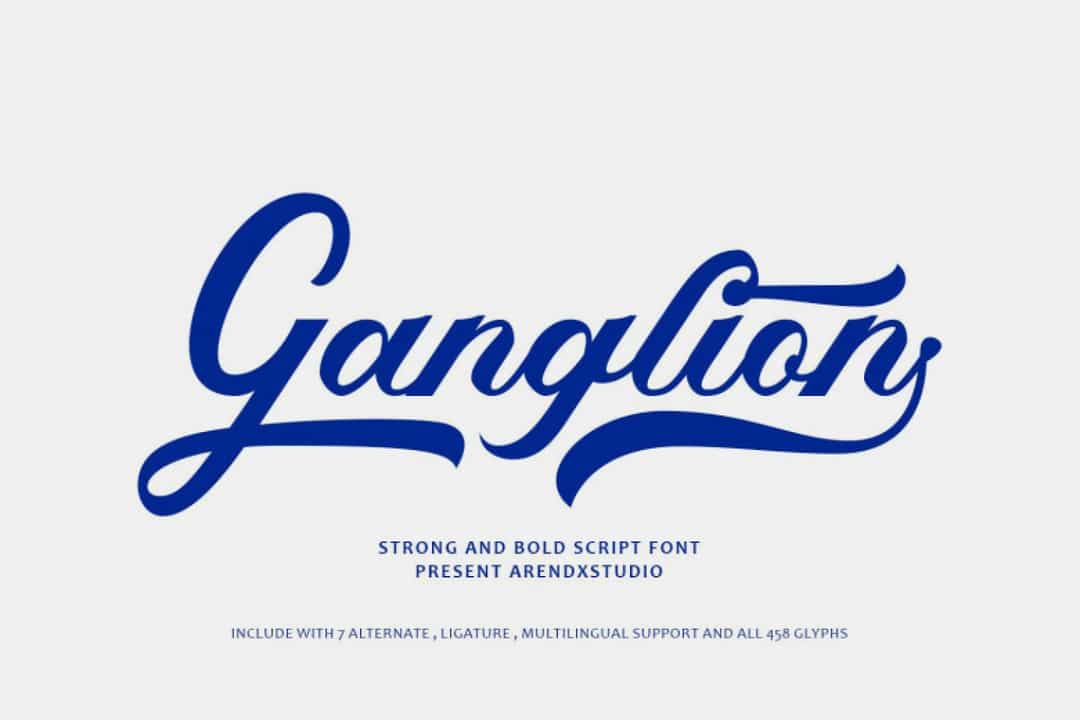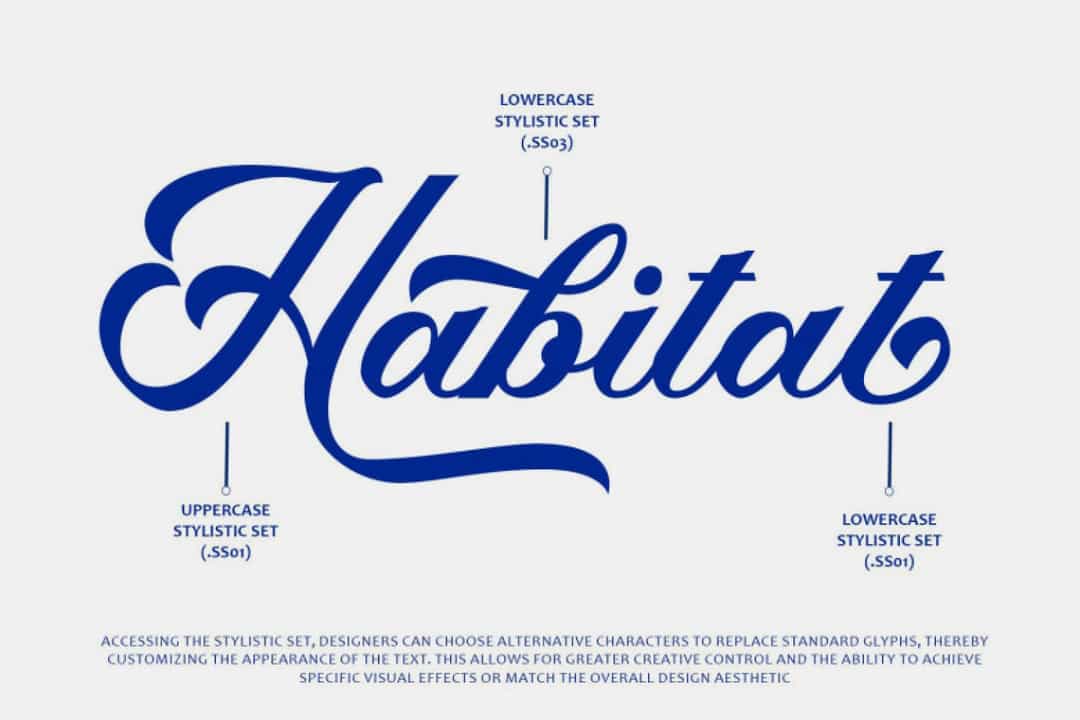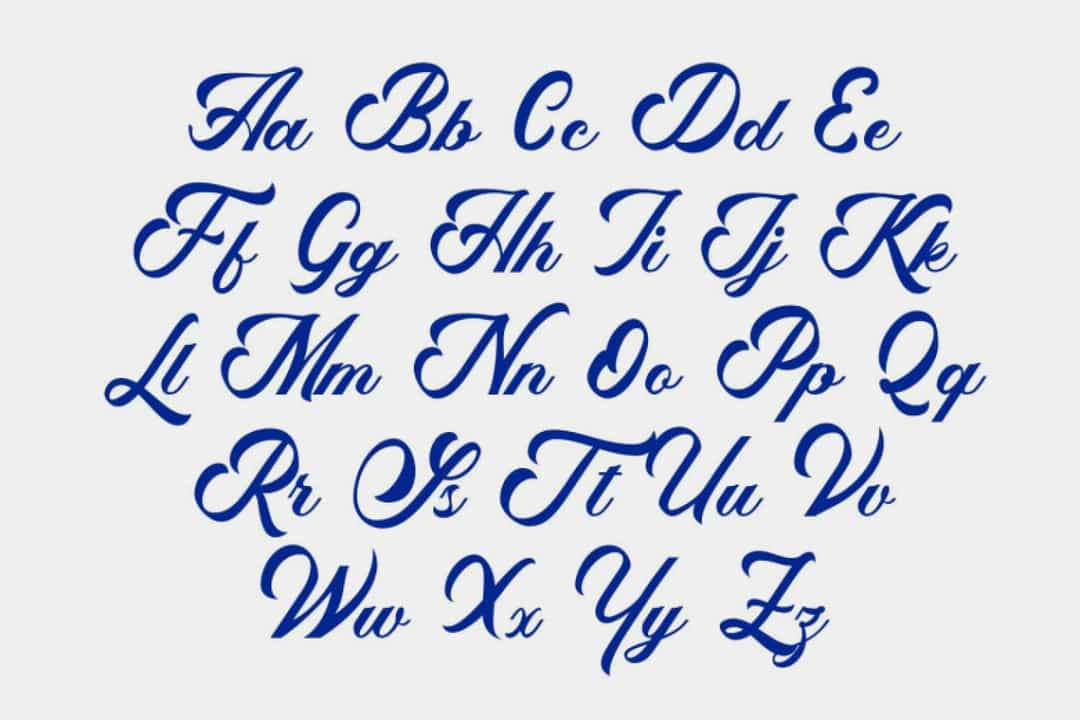
Ganglion font stands out, boasting its distinctive style with sturdy letters that exude strength and boldness, making it a top option for a wide range of designs. Known for its bold style and striking appearance, Ganglion font is ideal for creating striking headlines logos branding materials as it exudes confidence and authority; an essential font choice to bring any piece together with panache!